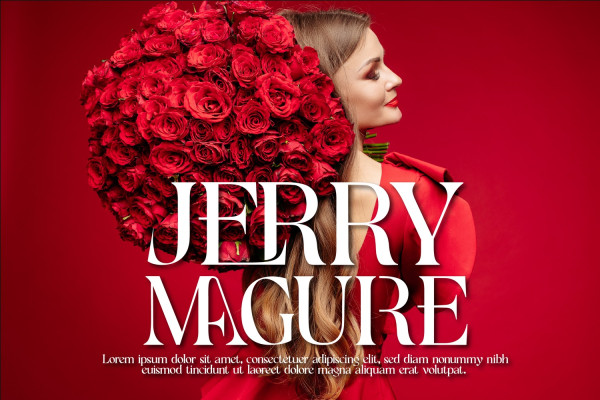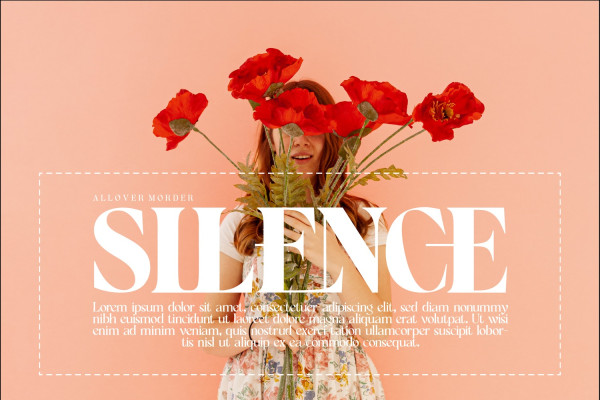
Allover Modern Font
ALLOVER MODERN FONT is a type of elegant display font that features large, bold lettering with unique decorative details on each character. The font gives off an elegant and classic feel, while still appearing modern and in line with current design trends. It has beautiful ligatures, alternates and multilingual support. The shape is very versatile and works great in large and small sizes. Perfect for branding projects, Logo design, branding, product packaging, magazine headers, or simply as a stylish text overlay to any background image. You can apply it in OpenType mode in adobe photoshop or adobe illustrator.
Allover Modern was built with OpenType features and includes 100 ligatures, alternate, numbers, punctuation, and it also supports other languages.
AC AD AL AN AR AS AT AU AV BE CA CE CH CO CT DE DI EA EC ED EE EL EM EN EP ER ES ET FE FO FR GE HA HE HI HO IE IC IL IN IO IR IS IT JU KE LA LE LI LL LO LY MA ME MI NC ND NE NG NO NT NS OC OF OM ON OO OP OR OT OU OW PA PR RA RD RE RI RO RS RT SE SH SI SO SS ST TA TE TH TI TO TR TT UM UN UR VE WI WO